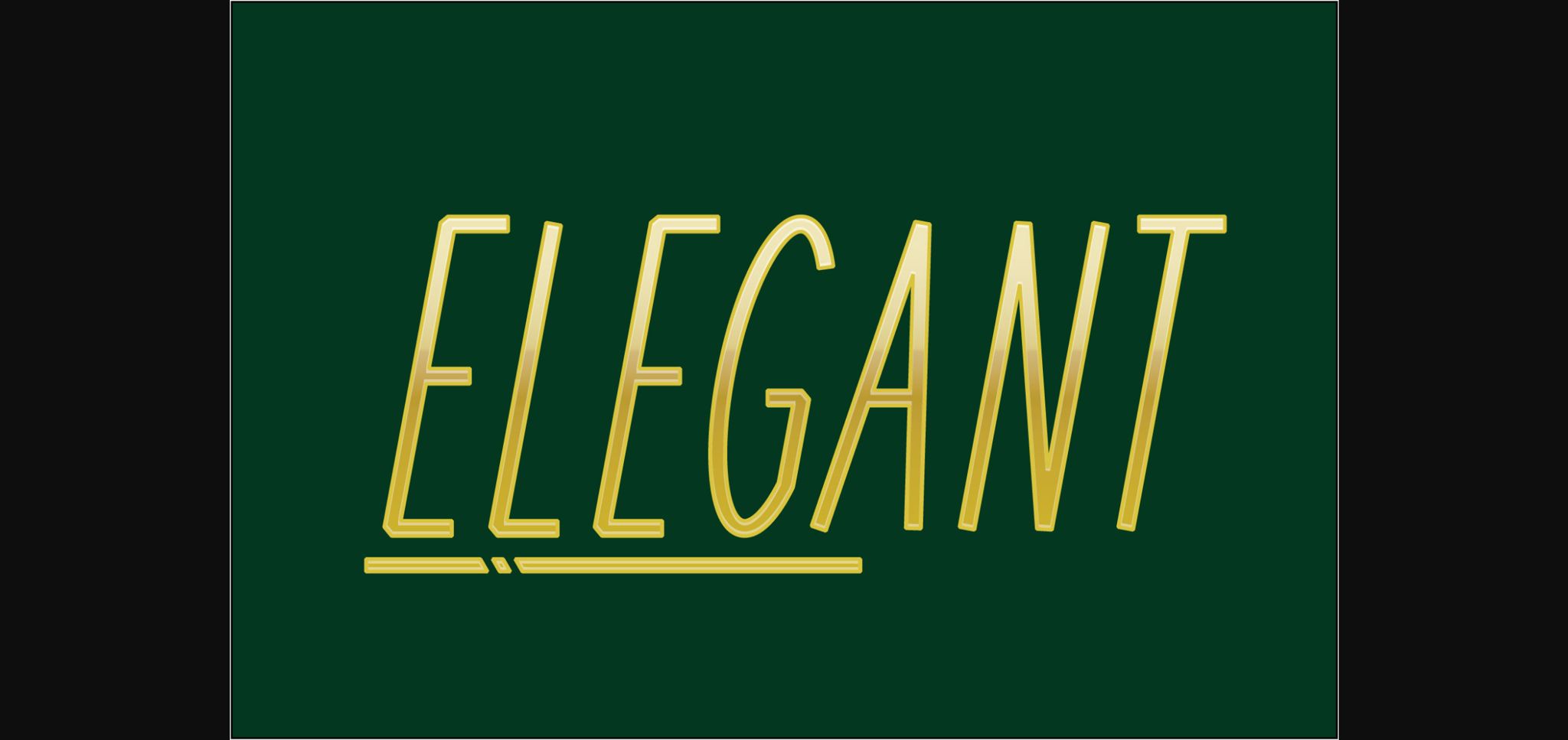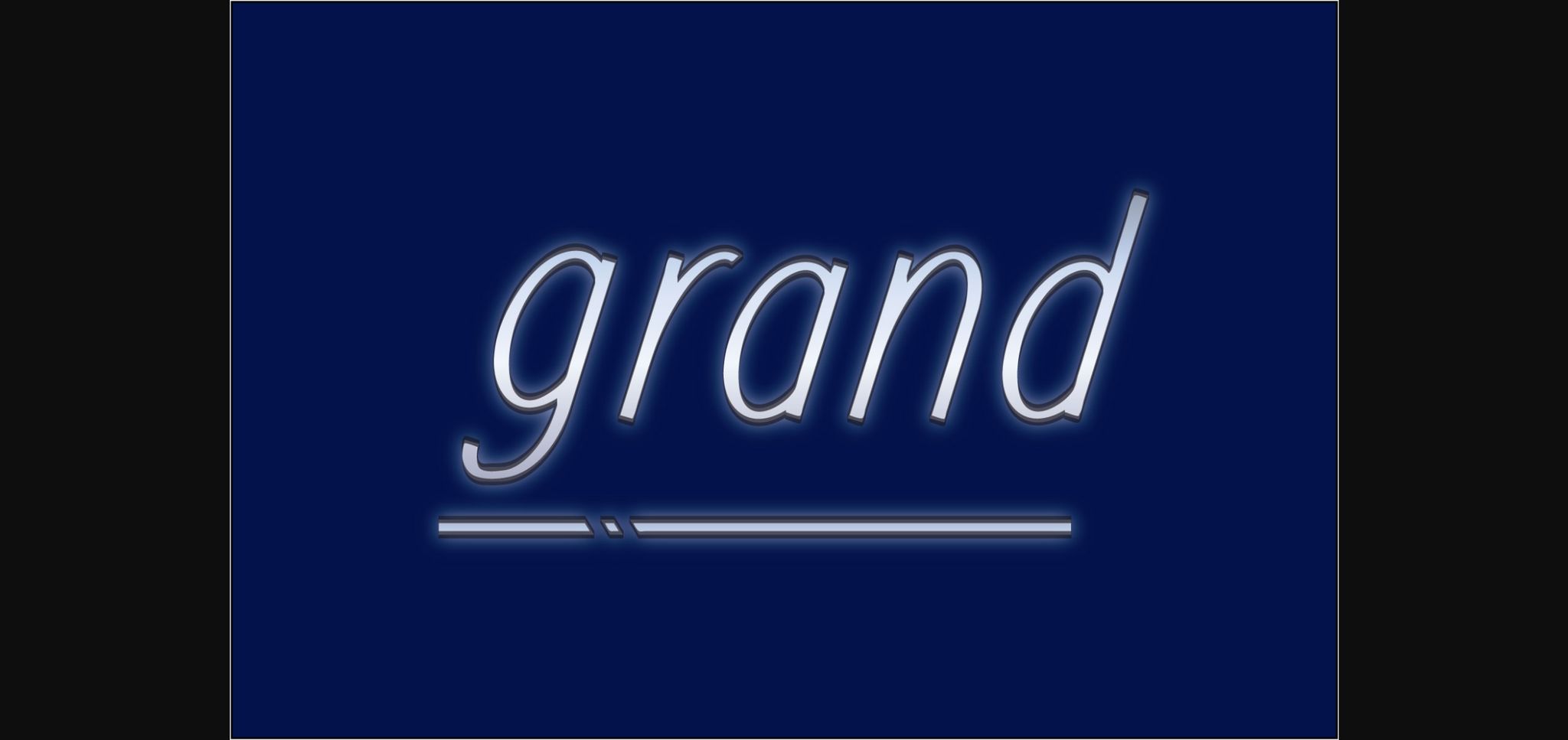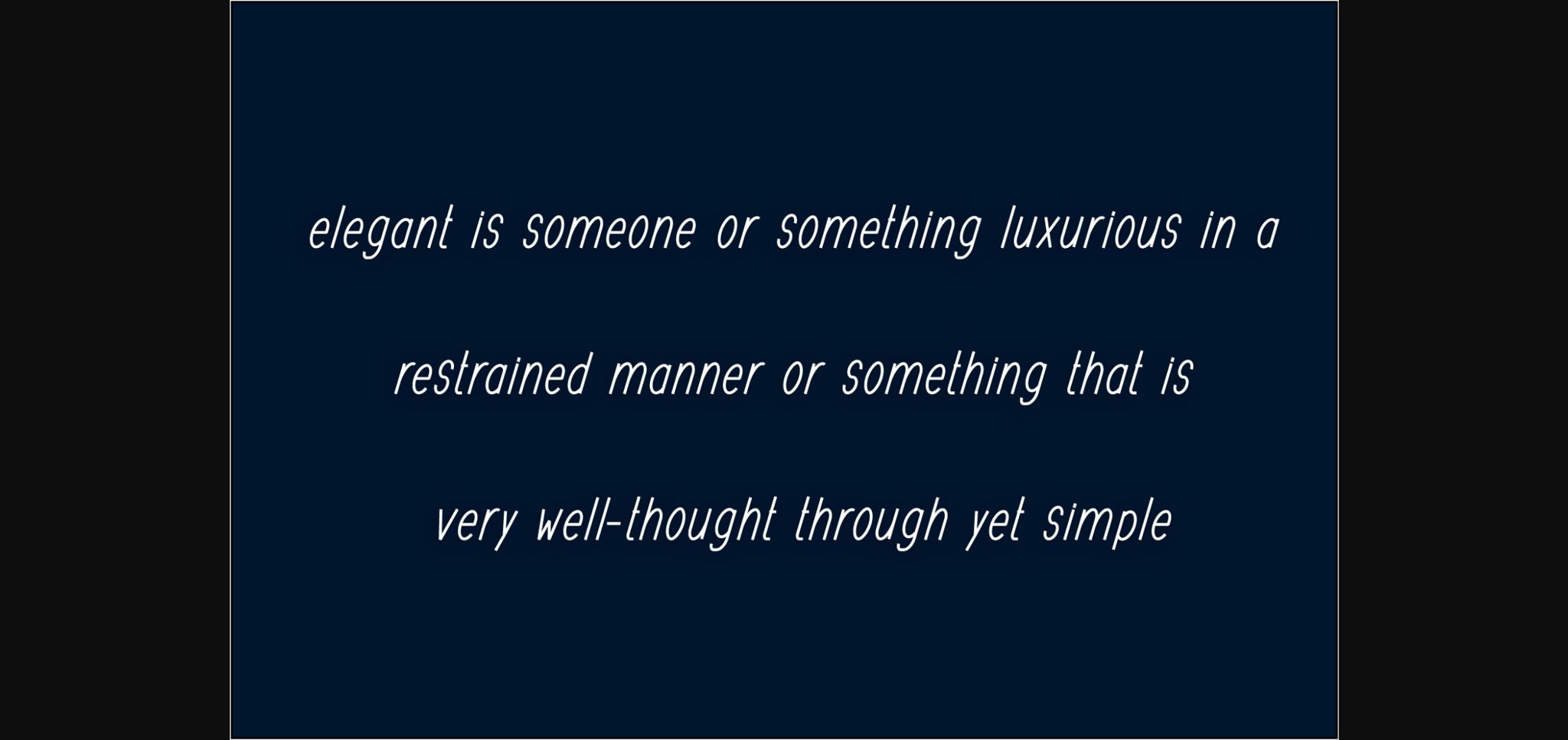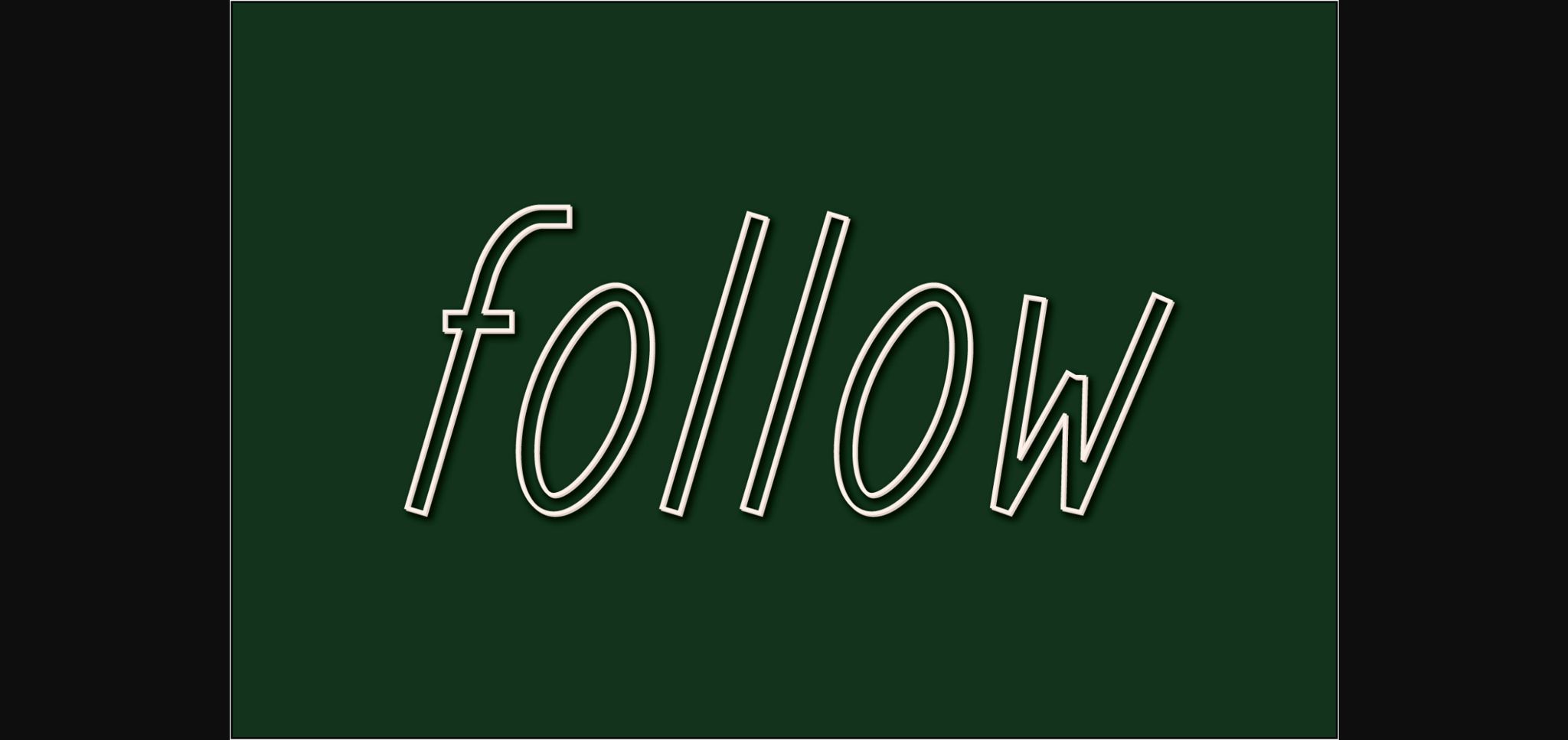
Elegant Font
About Elegant Font
Elegant is a Sans Serif font that features narrow letters and a slight slant. Sans serif fonts have great readability and is well suited to be used in the body text.